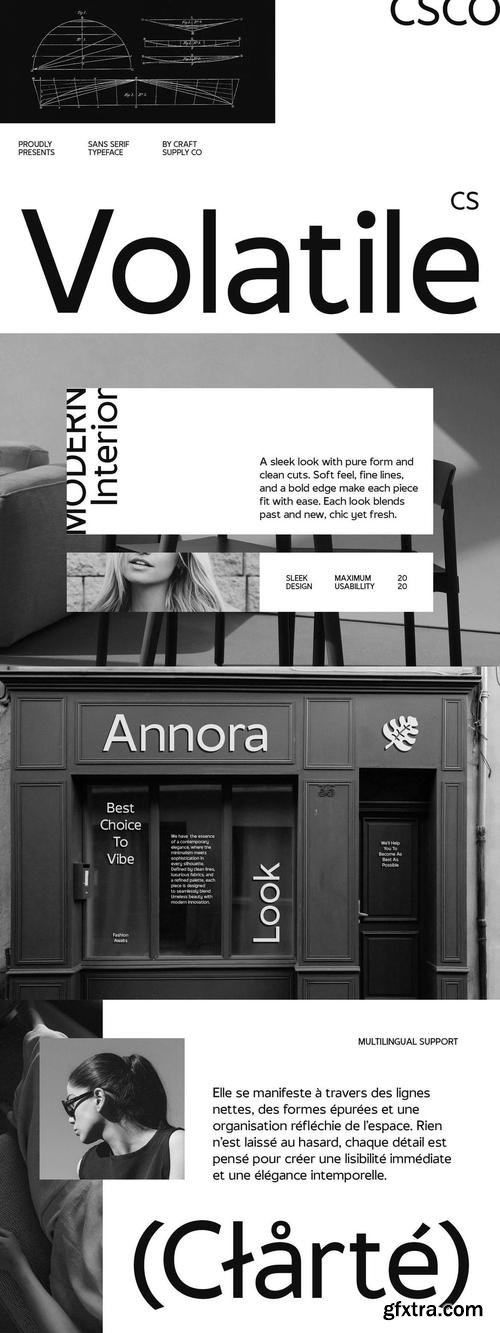
CS Volatile – Contemporary Font: Modern, Sleek, and Professional
Geometric Sans Serif with a Contemporary Touch CS Volatile is a modern sans-serif font with a contemporary geometric structure, delivering a clean, balanced, and professional aesthetic. Designed for versatility, it seamlessly adapts to branding, corporate identities, editorial layouts, and digital interfaces, offering a refined and sophisticated presence in any project.
Minimalist Design for Maximum Impact Featuring precise lines and harmonious proportions, CS Volatile embodies modern elegance while maintaining exceptional readability and clarity. Its sleek and understated design enhances both print and digital applications, making it a reliable choice for designers seeking a polished, high-end look.
Perfect for Corporate and Editorial Use With its functional elegance, CS Volatile is ideal for corporate materials, magazines, web design, and UI/UX interfaces. Its well-structured letterforms ensure a strong, confident impression, reinforcing professionalism and visual appeal across various media.
A Versatile Typeface for Modern Designs Whether used for branding, digital experiences, or editorial compositions, CS Volatile delivers a timeless yet contemporary touch. Its ability to balance style, precision, and functionality makes it an essential font for any designer looking to create sophisticated and impactful visuals.
So, if you're ready to bring a touch of vintage rebellion to your designs, Maverick is the perfect typeface to make your creativity shine. Stay groovy, stay bold, and let the good vibes roll!
Darine is a calligraphy font that blends elegance with a classic vintage touch. With beautifully flowing characters and captivating details, this font brings a luxurious yet nostalgic vibe. It’s perfect for elegant designs such as wedding invitations, branding, logos, product packaging, and various creative projects that call for a classic and refined feel.
Features: ✔ Uppercase ✔ Lowercase ✔ Numeral ✔ Functional ✔ Multilingual ✔ Stylistic Glyphs